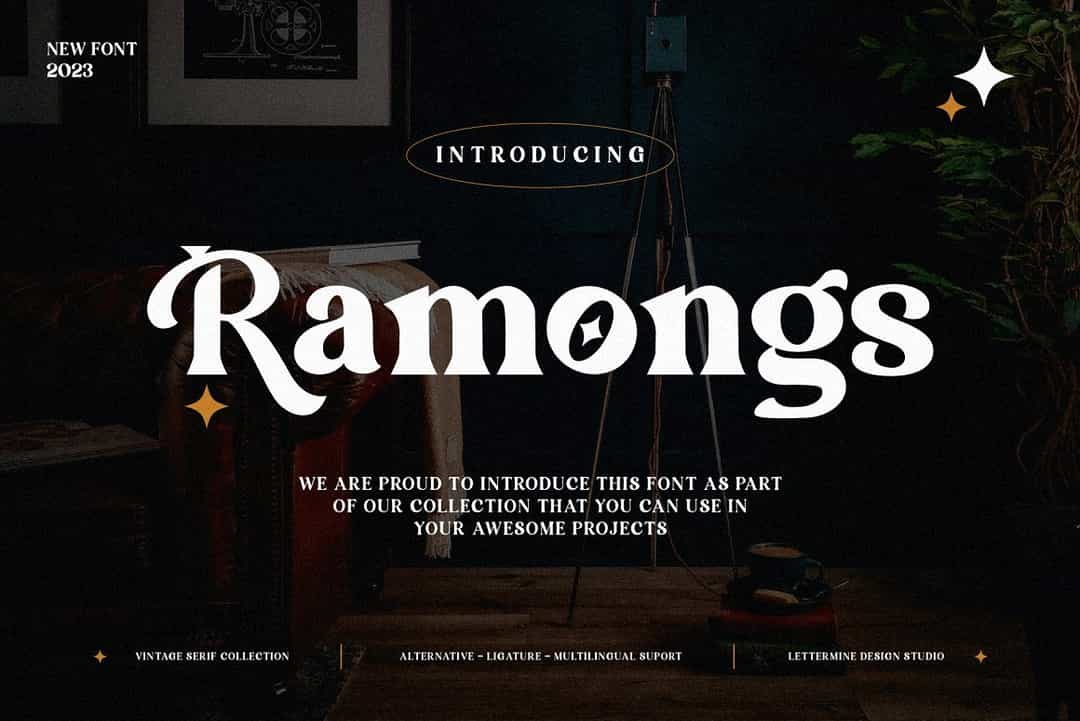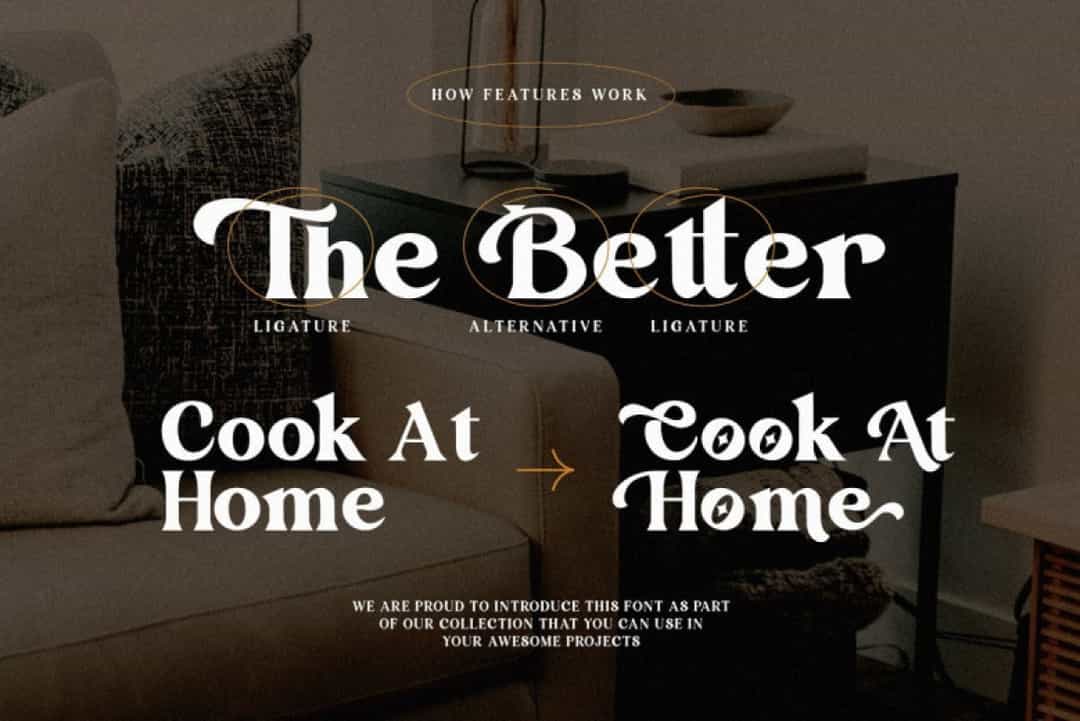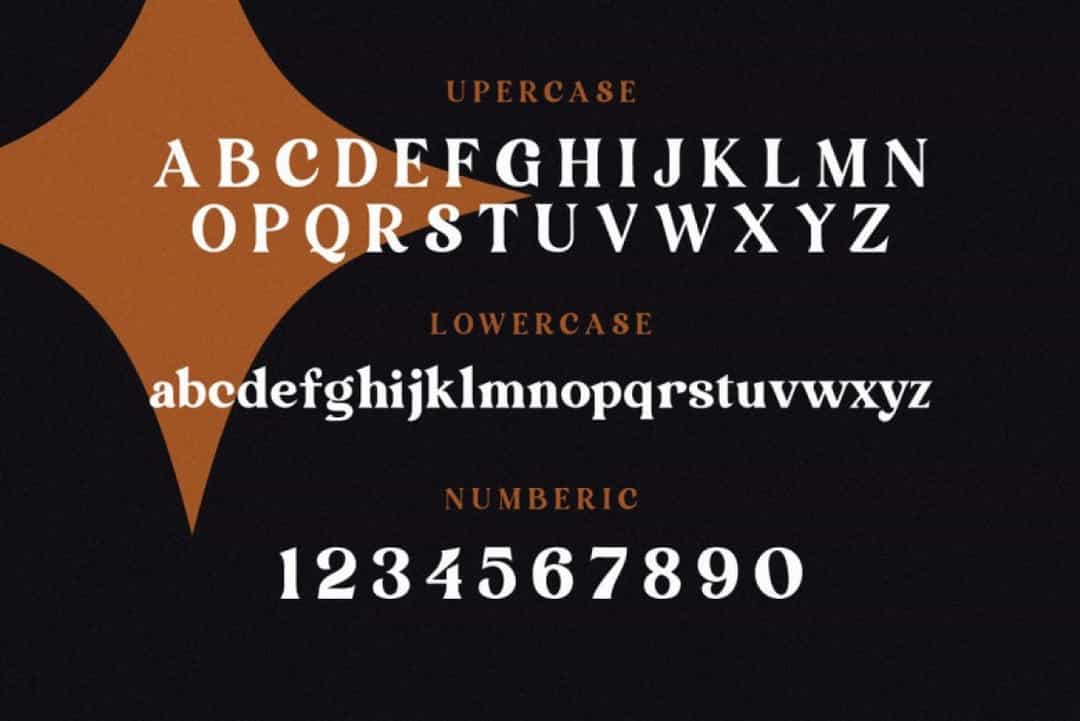
Ramongs is an elegant yet versatile serif font designed to bring class and modernity to any project, whether that’s food or fashion related or other celebrations like birthdays, weddings or engagements.